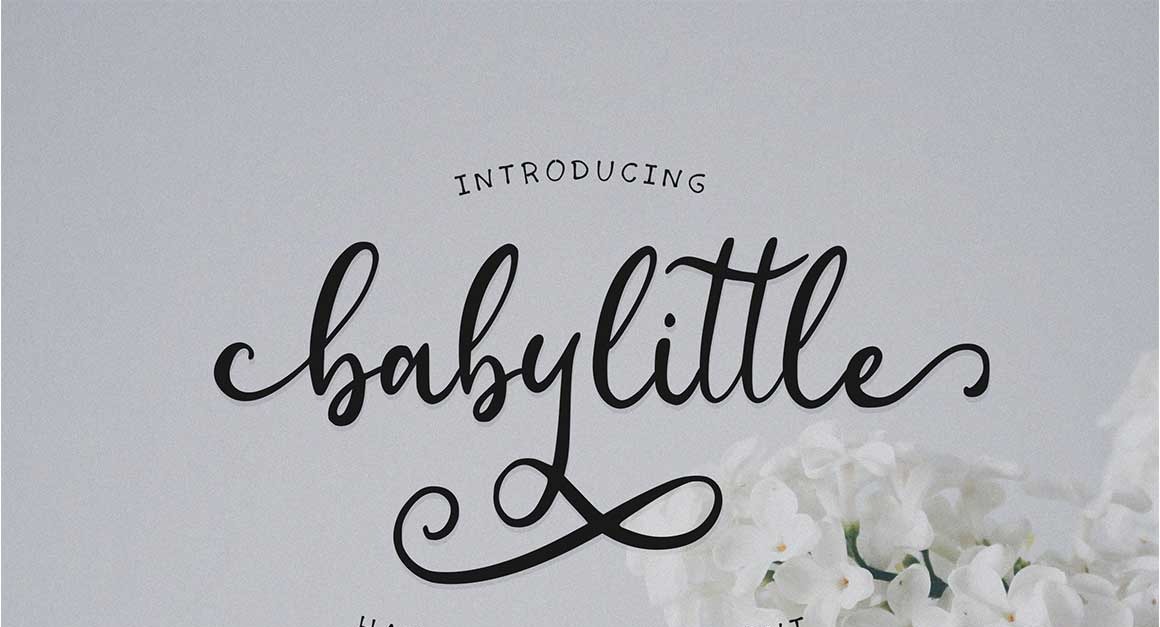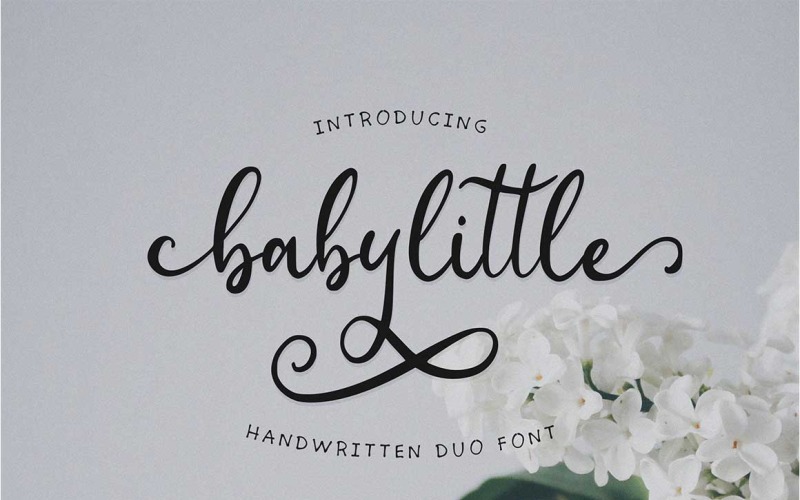
Babylittle Duo Font
Hallo, I want to introduce my font Babylittle Duo Font. Babylittle Duo Font script is perfect fo you up coming projects. such as modern invitation design, branding stationery design, wedding, birthday ,quote , etc and any projects.
- Alternate Characters
- Uppercase and Lowercase letters
- Numbering and Punctuations
- Multilingual Support